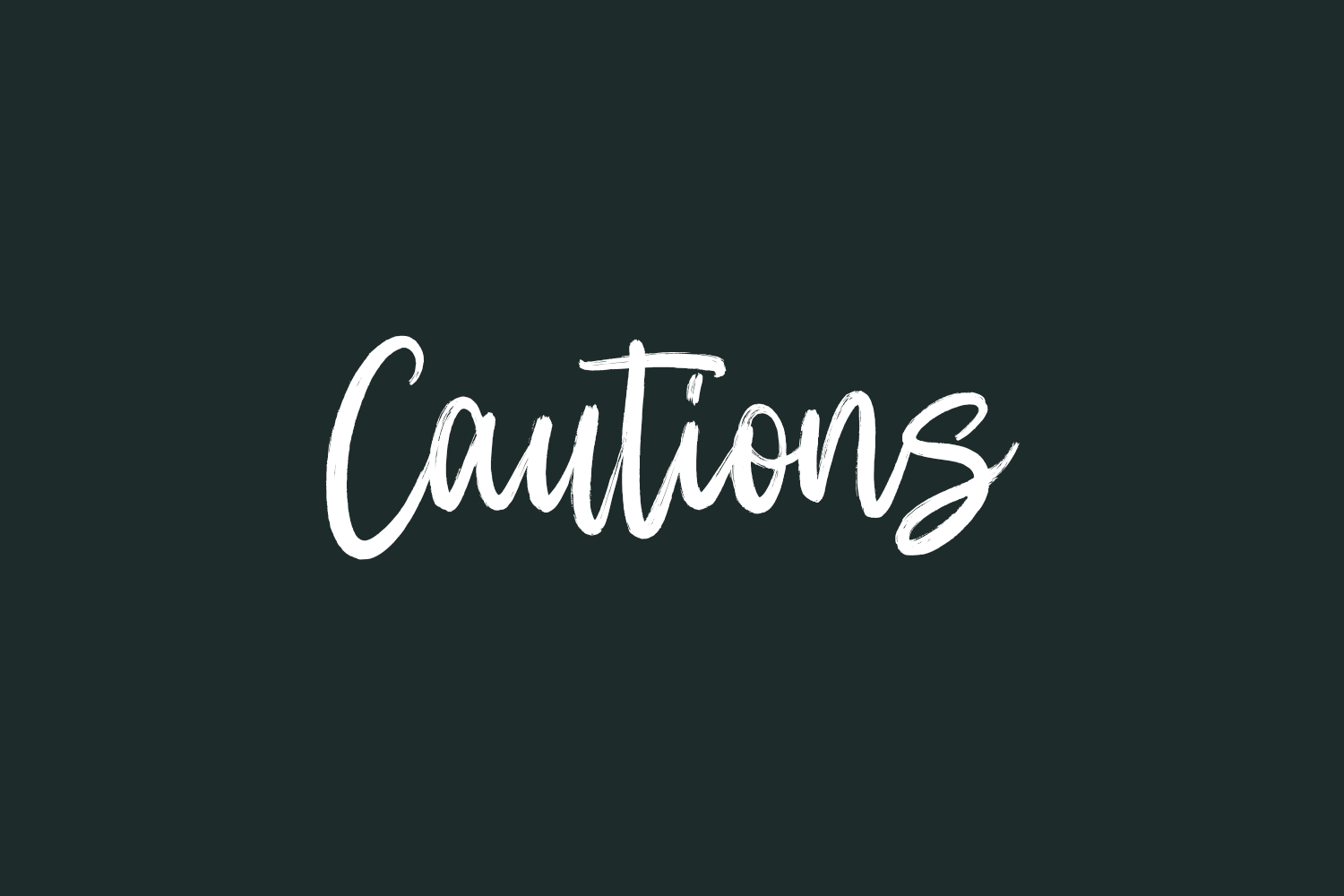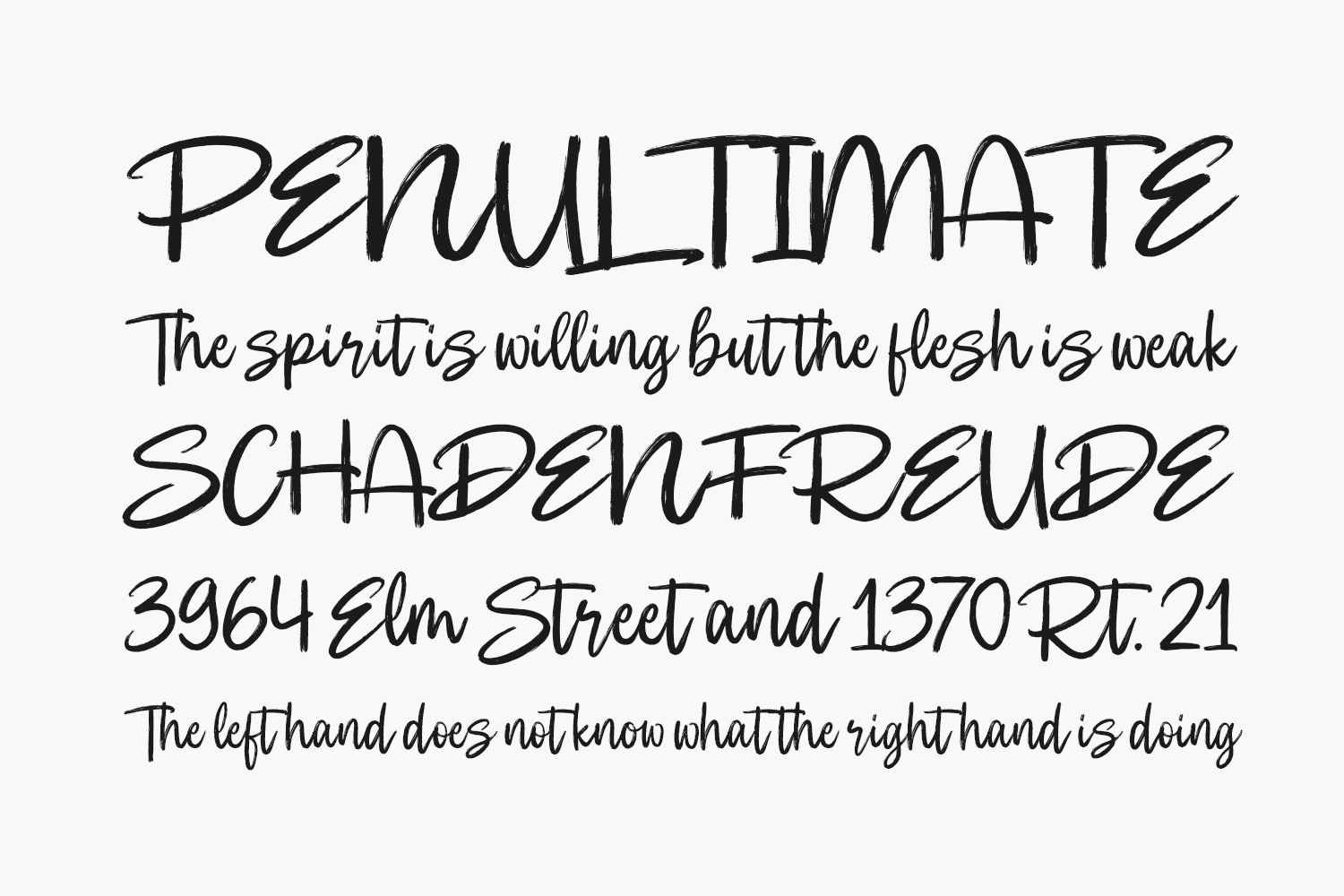
Cautions Free Font is a fabulously fun yet elegant script font with tons of energy, allowing you to create beautiful hand-made typography in an instant. With extra bouncy curves & loops, Cautions is guaranteed to make your text stand out – perfect for logos, printed quotes, invitations, cards, product packaging, headers, and whatever your imagination holds. Cautions Free Font was designed by Fargun Studio and is free for personal use only. Please purchase the full version for commercial use.